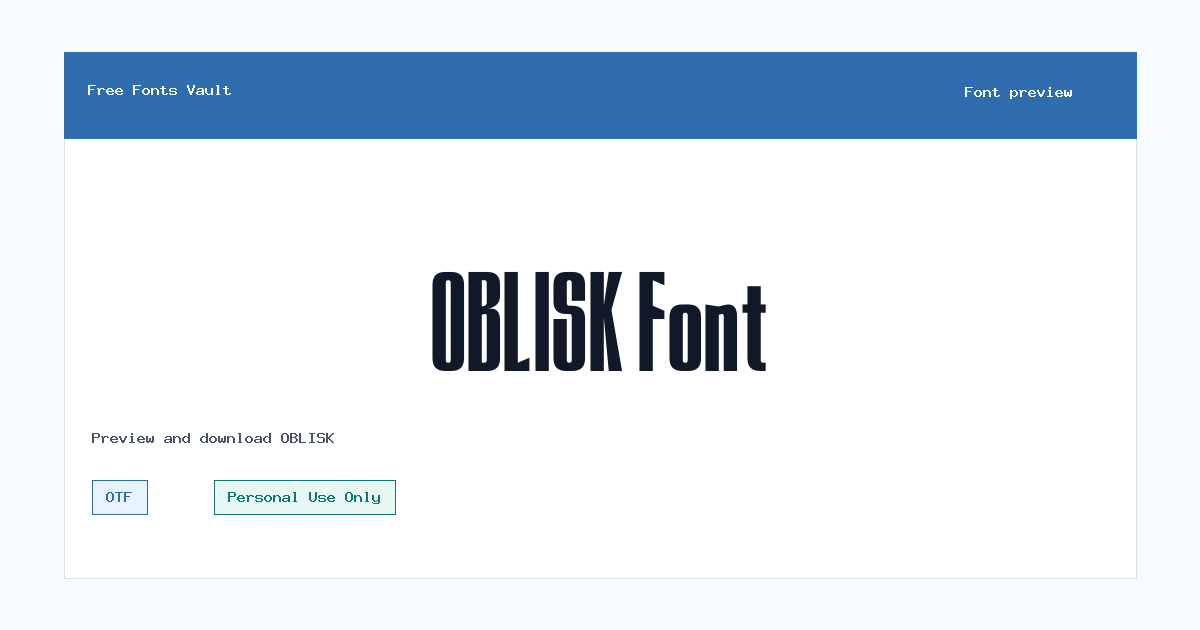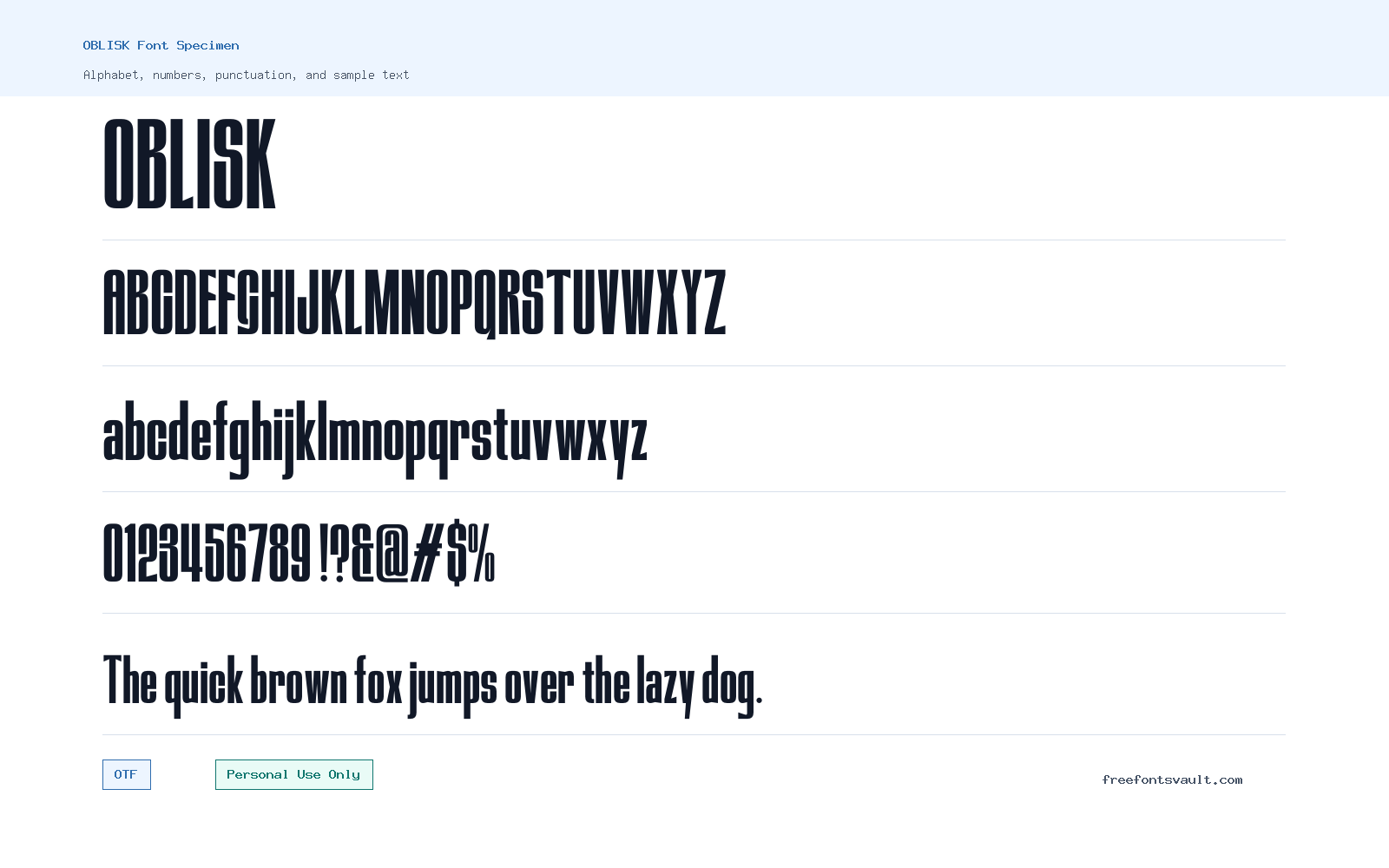
OBLISK
OBLISK Font
OBLISK is a display font with a strong, title-focused presence. It is best approached as a font for short text, branding drafts, posters, thumbnails, and visual experiments where the lettering needs to stand apart from normal body copy.
About OBLISK Font
OBLISK is a regular-weight OTF font designed for display use rather than long reading. Its name suggests a tall, structural feel, and the font works best when you give the letters enough space to make an impact. Use it for words, names, short headlines, cover-style layouts, or logo concepts where the type itself becomes a main visual element. Because only one regular style is listed, the design should be tested carefully at the size and spacing you plan to use instead of relying on bold, italic, or multiple weights to create hierarchy.
For designers, OBLISK can be useful in poster layouts, album-cover concepts, game title mockups, social media graphics, YouTube thumbnails, web hero drafts, and early logo exploration. Try it in uppercase and mixed-case previews, then check how the spacing behaves in your exact text. Display fonts can look powerful in one-word compositions but may become harder to read in paragraphs or small navigation labels. If you use OBLISK in a web mockup, keep it for the main title or short callout and pair it with a simpler sans serif or serif for descriptions, buttons, and supporting copy.
• Suited to short titles, logo drafts, posters, headers, and visual mockups
• Best used at larger sizes where letter shapes and spacing can be checked clearly
• Poster titles and event graphics
• Logo concepts and brand-name mockups
• YouTube thumbnails and social media headline art
• Website hero headings in personal or concept projects
• Album-cover, game-title, or editorial display typography
• Short typographic compositions where the font is the main visual element
What kind of projects is OBLISK best for?
OBLISK is best for display typography such as posters, short headlines, logo drafts, title graphics, web hero mockups, and social media visuals.
Is OBLISK good for body text?
It is better suited to short display text. For paragraphs or long descriptions, pair it with a more readable text font.
Does OBLISK include multiple weights?
Only one regular variant is listed, with normal style and 400 weight. Build contrast with size, spacing, color, or a paired font rather than expecting multiple weights.